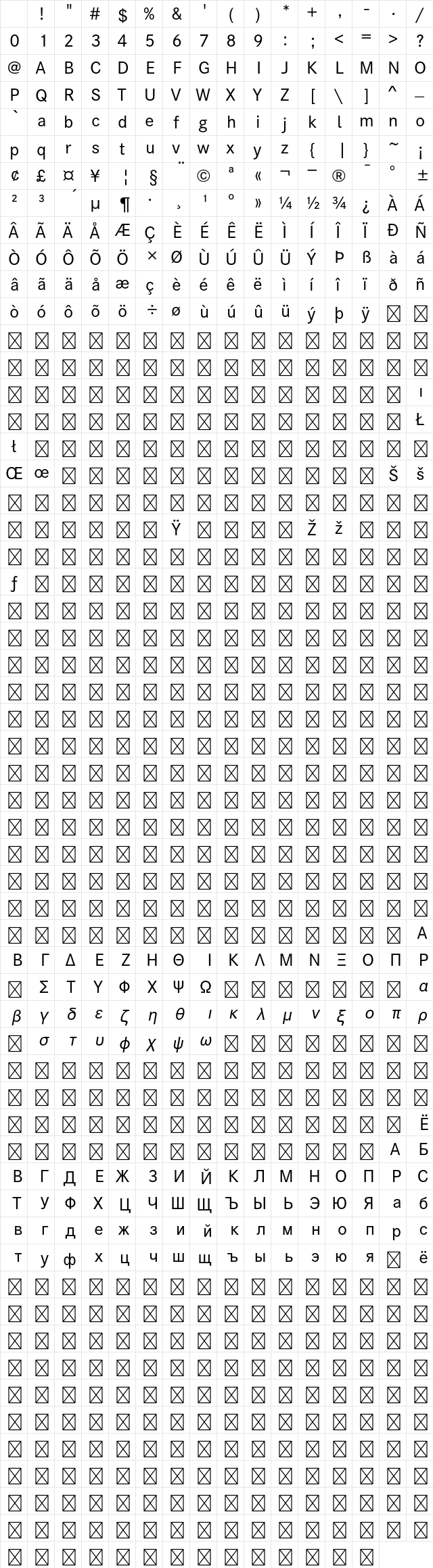
A P-OTF Shuei KakuGo Kin StdN M
Style: M
Designer: Dai Nippon Printing Co., Ltd.
Design Context for A P-OTF Shuei KakuGo Kin StdN
A P-OTF Shuei KakuGo Kin StdN is a composed and adaptable typeface that performs quietly and consistently across a wide range of design contexts.